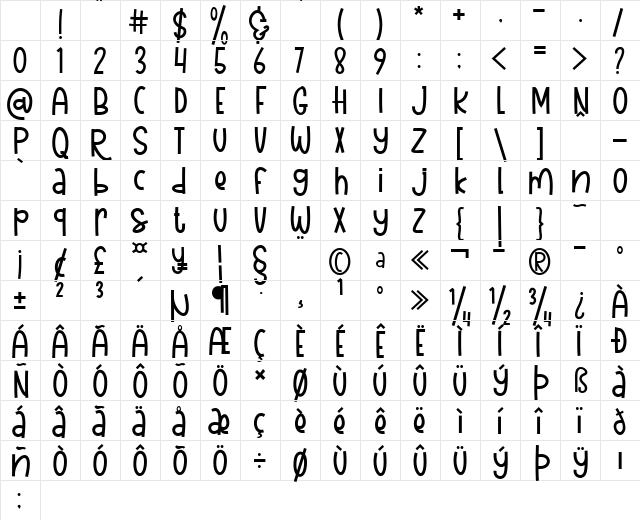
Complete The Lady Bear Regular glyph index. Displaying only characters natively supported by The Lady Bear Regular font.
The Lady Bear is a composed and adaptable typeface that performs quietly and consistently across a wide range of design contexts.